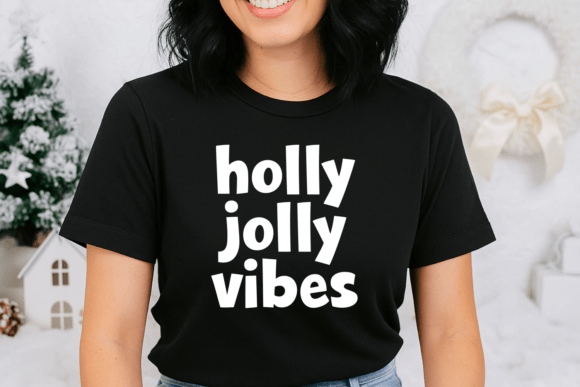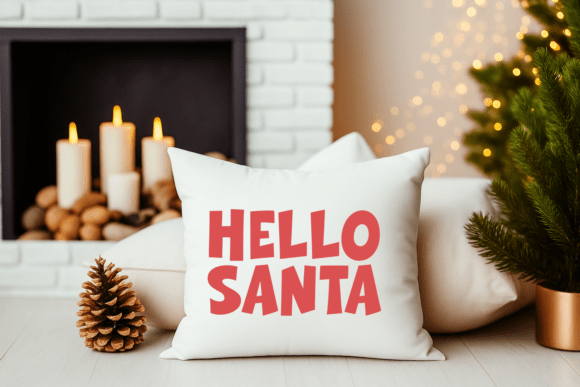
Holiday Grinch Font
Bring festive mischief and holiday cheer to your designs with Holiday Grinch — a bold and playful Christmas display font full of character and fun!
Inspired by the joyful chaos and laughter of the holiday season, Holiday Grinch features chunky, quirky letters with a handcrafted charm that instantly adds warmth and personality to your creative projects.
Perfect for Christmas cards, winter crafts, holiday invitations, festive posters, children’s books, mugs, stickers, t-shirts, and joyful branding, this font will make every design feel merry and bright!
Whether you’re designing for Santa’s workshop or a cheerful family celebration, Holiday Grinch will fill your work with festive energy and playful vibes.